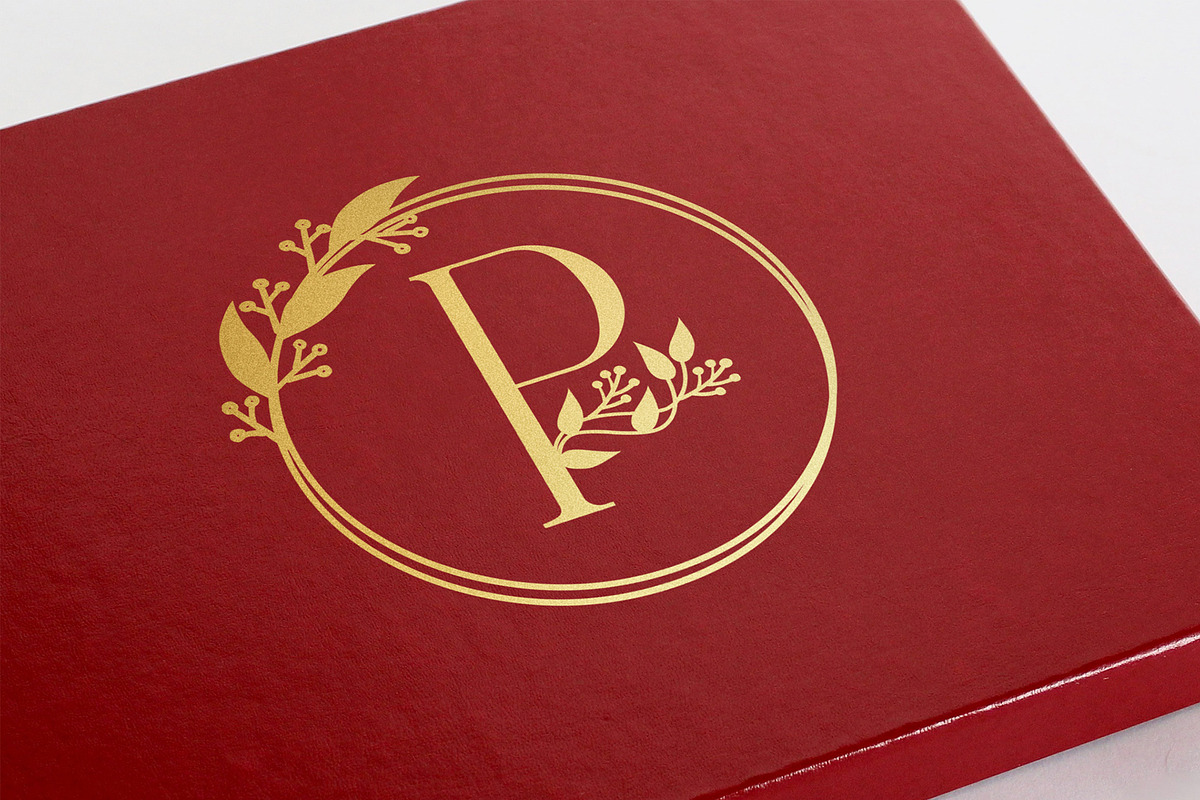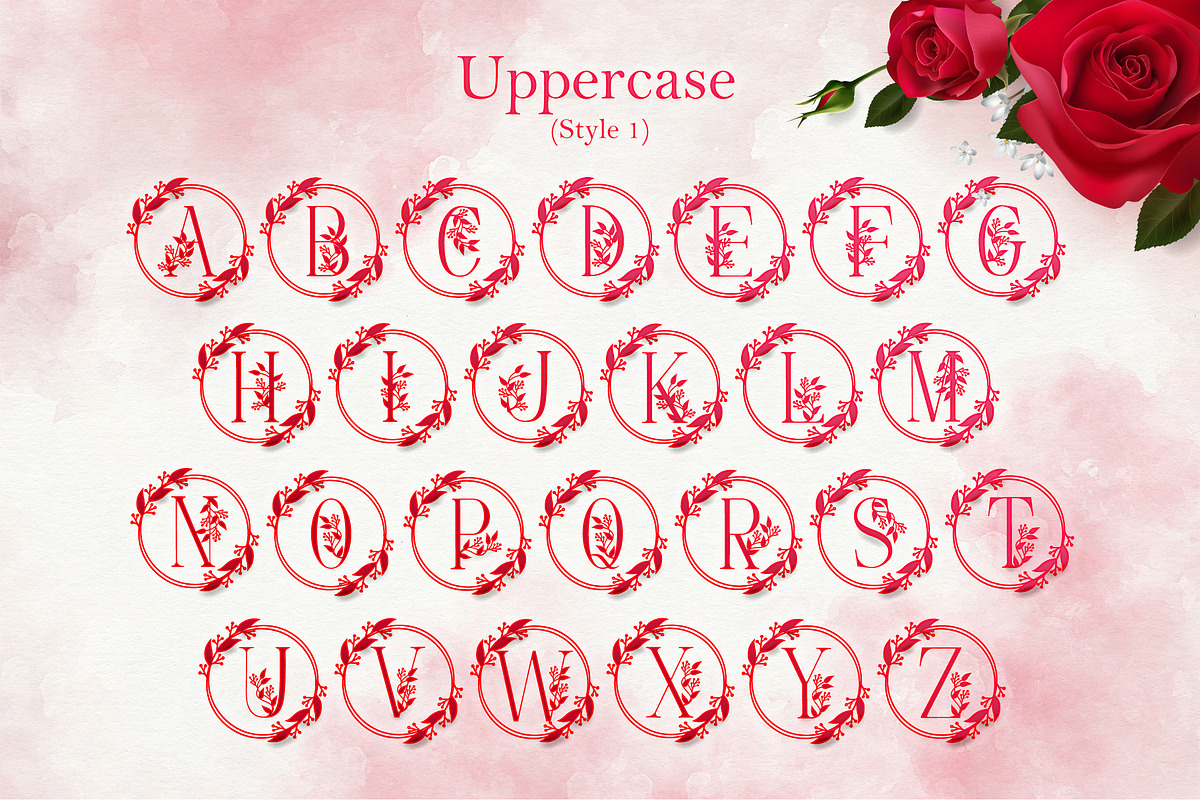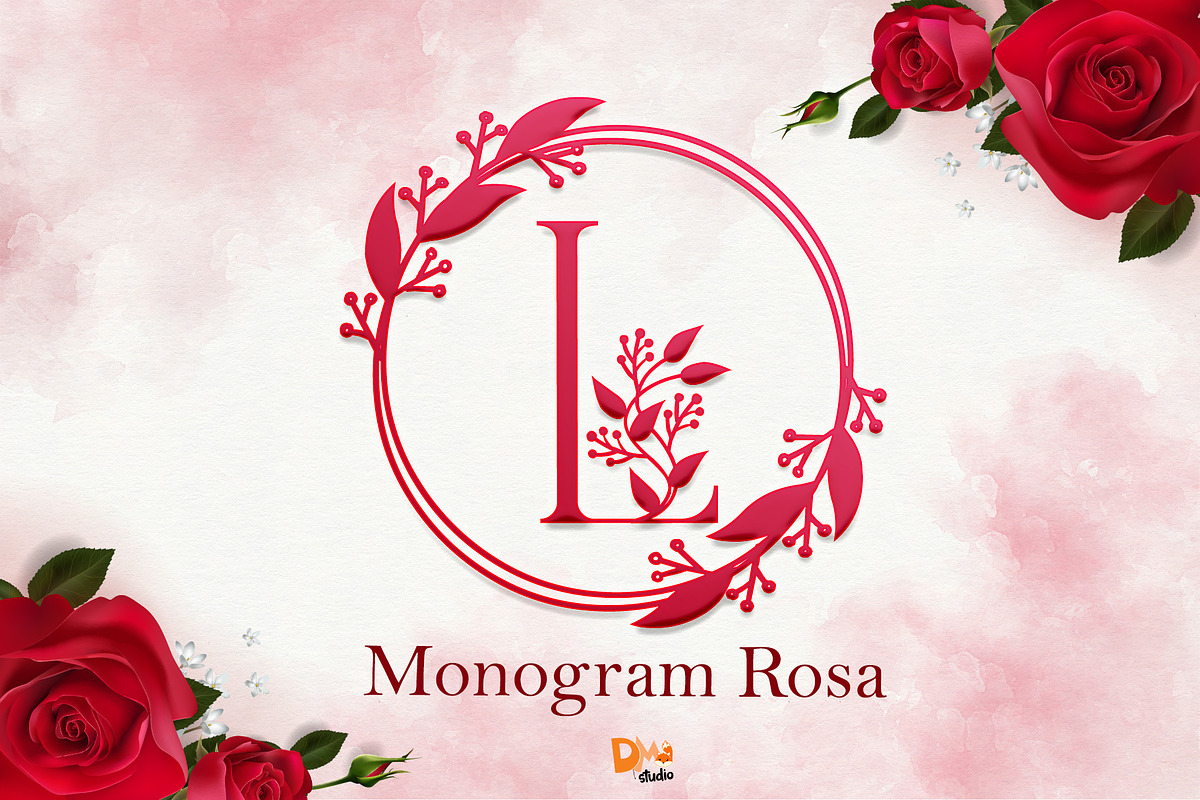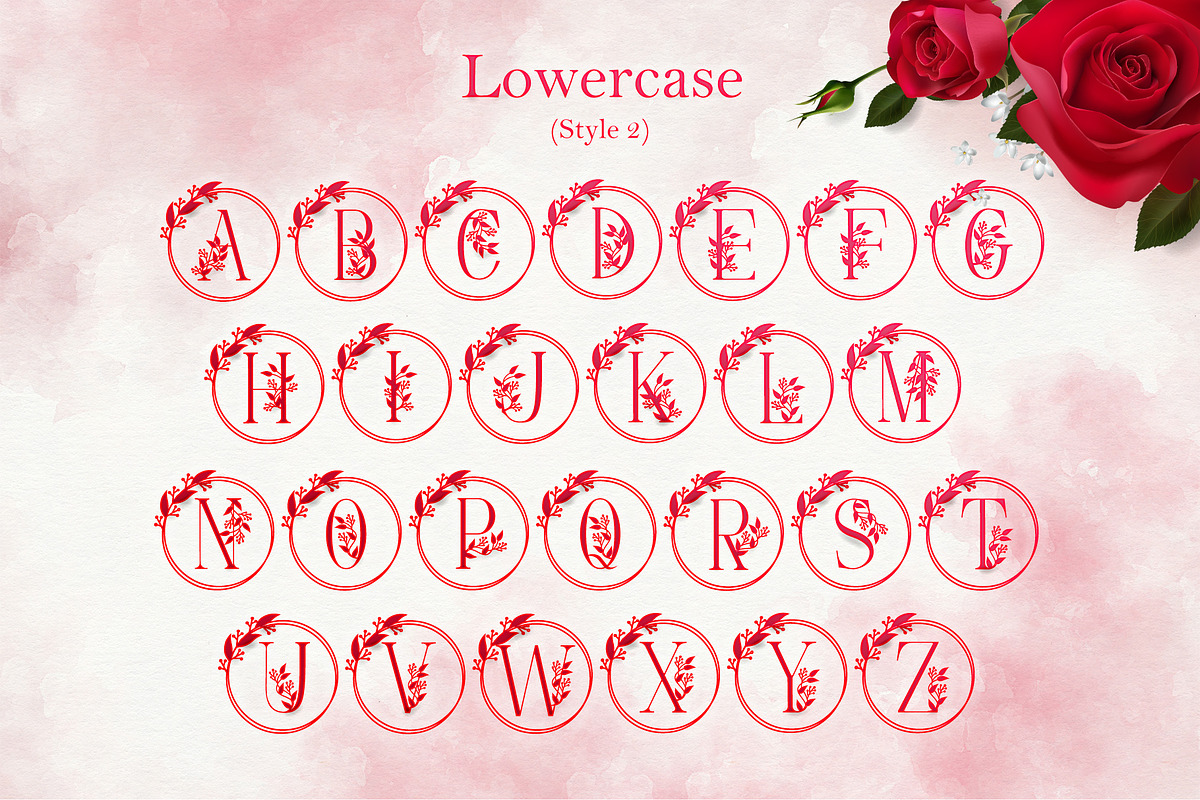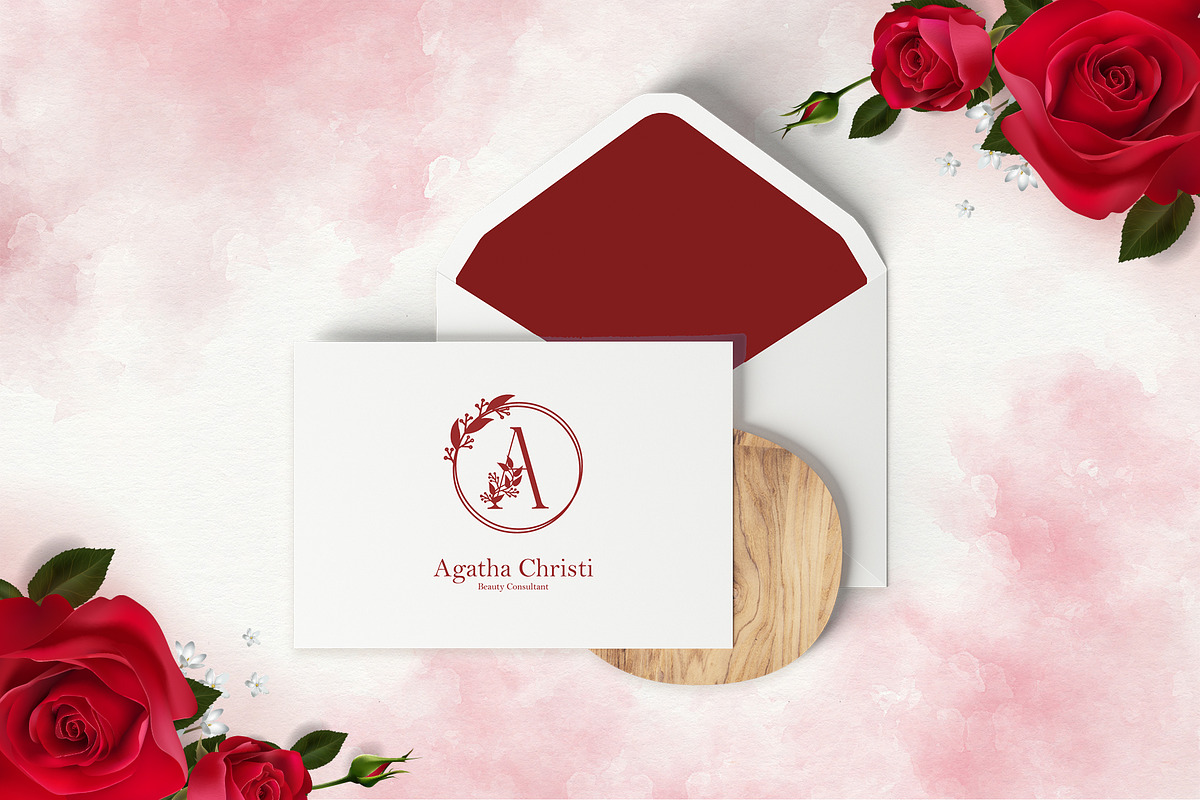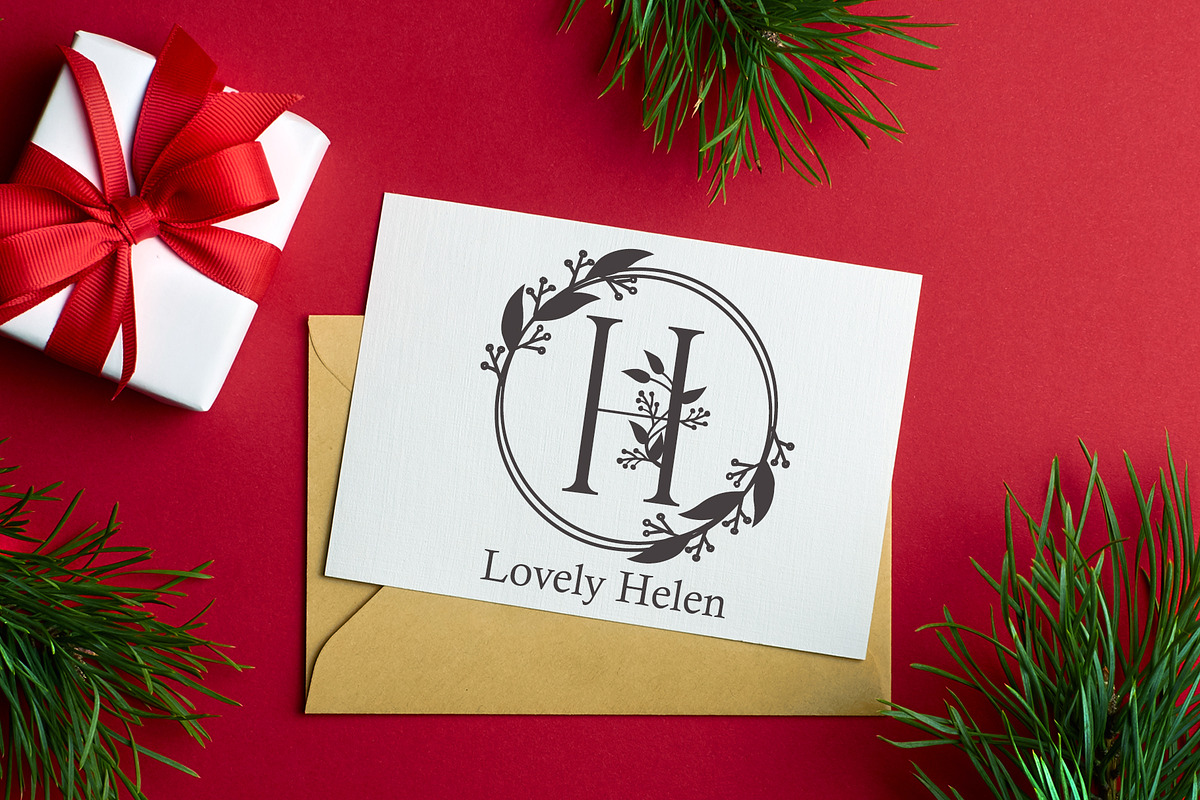
Monogram Rosa Font
Introducing this sweet, lovely Monogram Rosa font from our store!
Fall in love with its romantic touch with leaves outside and inside wreath to create some gorgeous designs, for your special occasions, for your business stuffs, logo, branding, merch, social media posts, and wedding cards.
Features : -Uppercase : Style 1 -Lowercase : Style 2
PS : The letters are exclusively made for our monogram fonts.